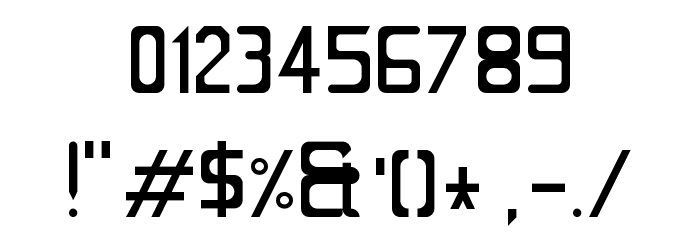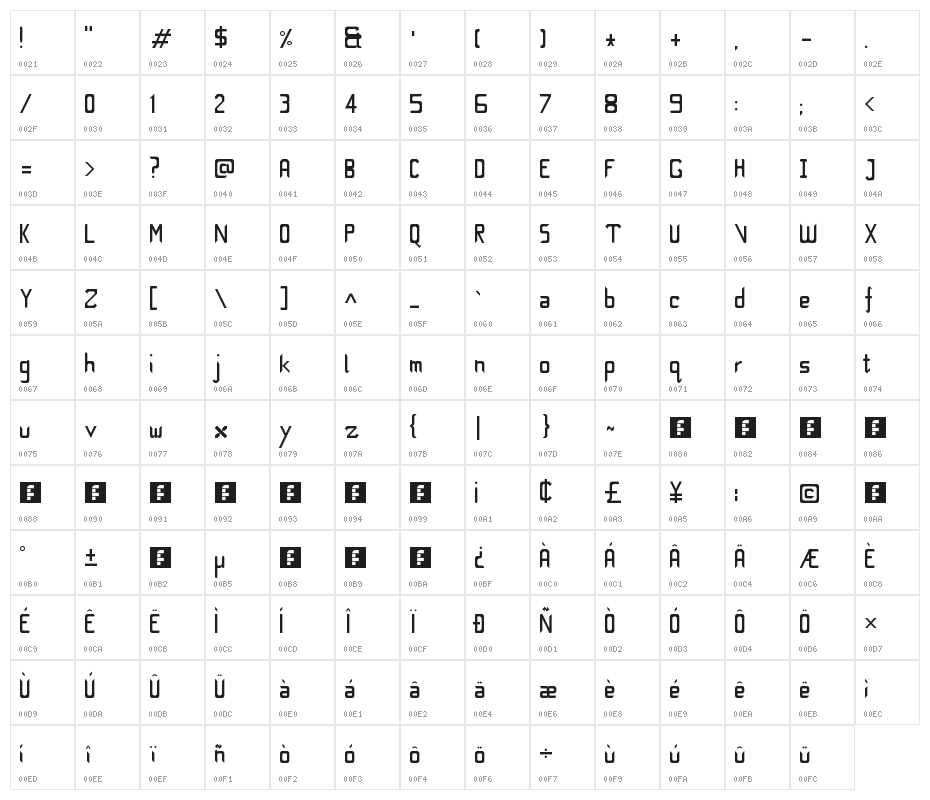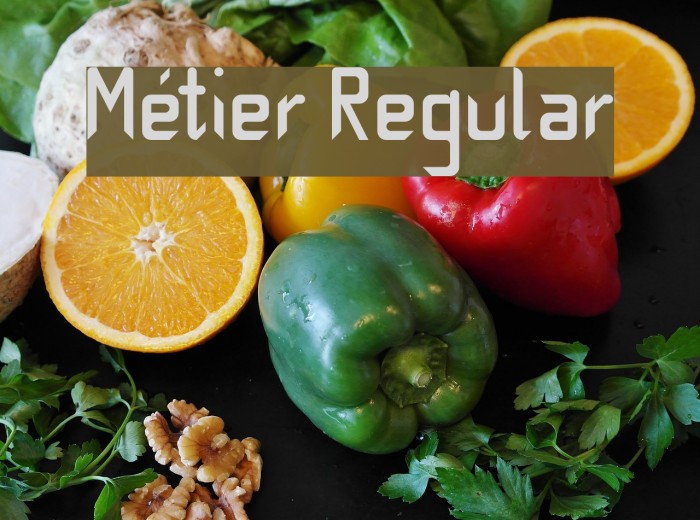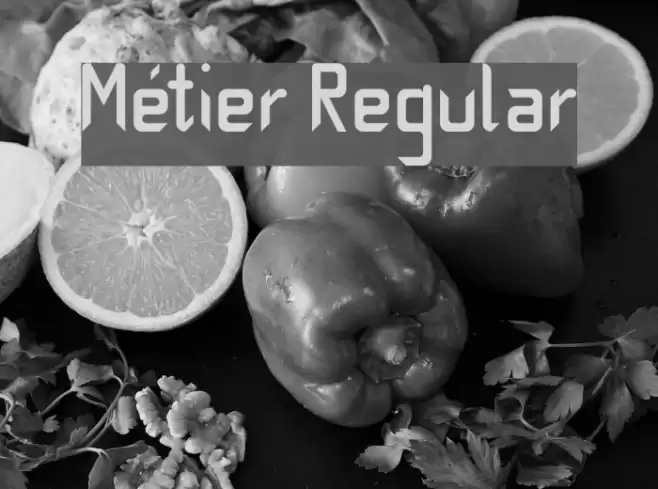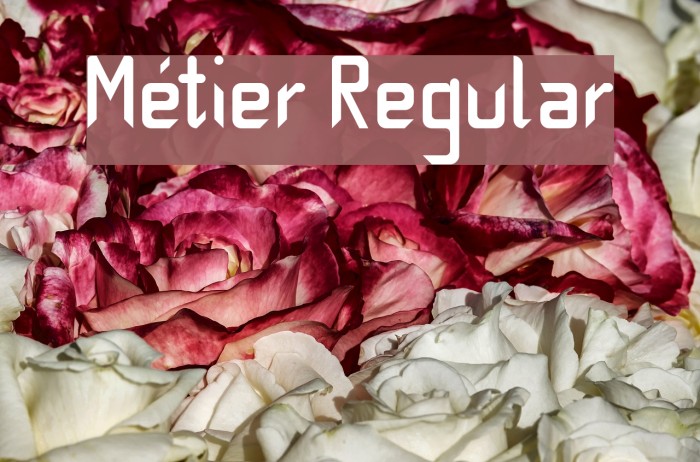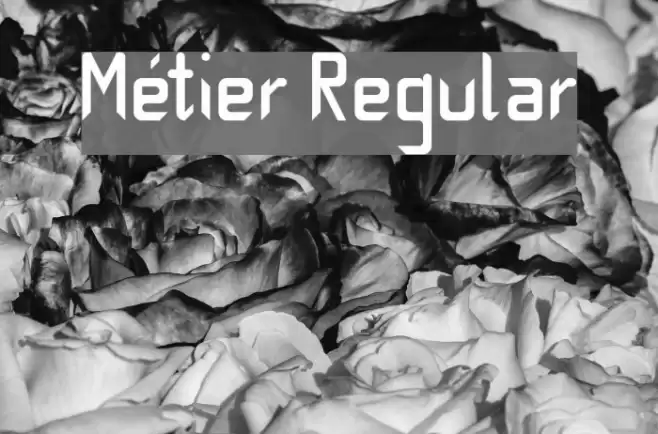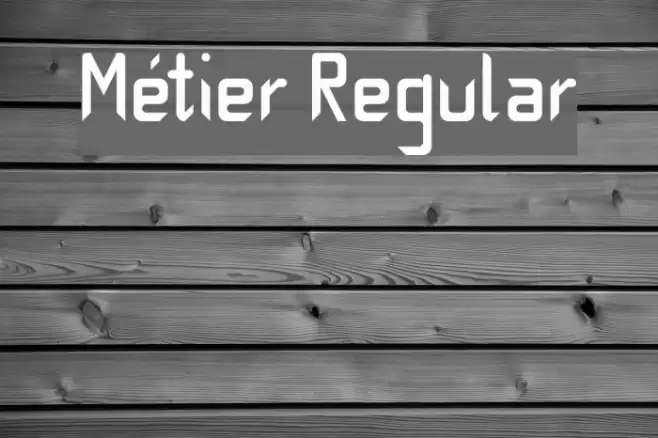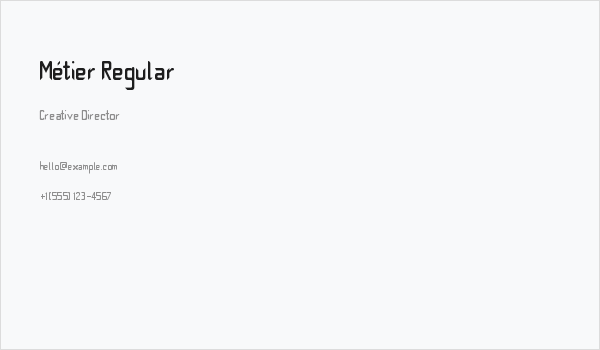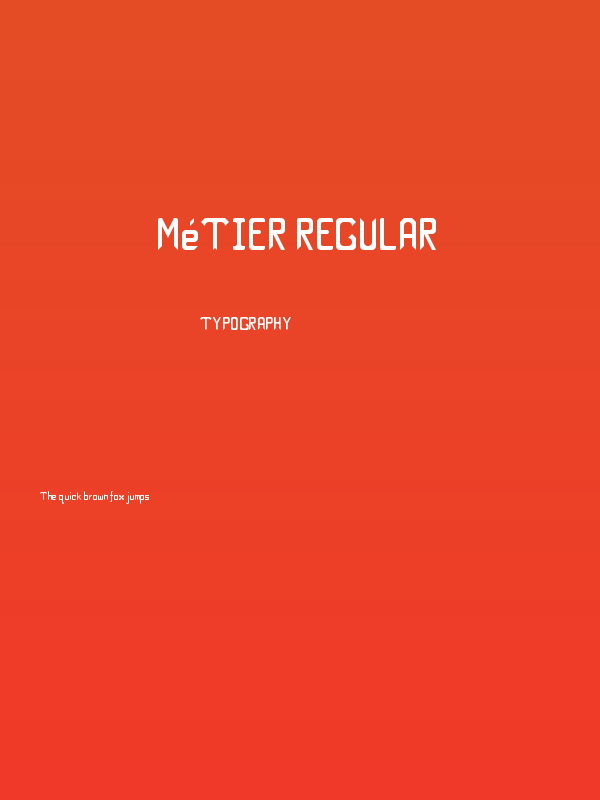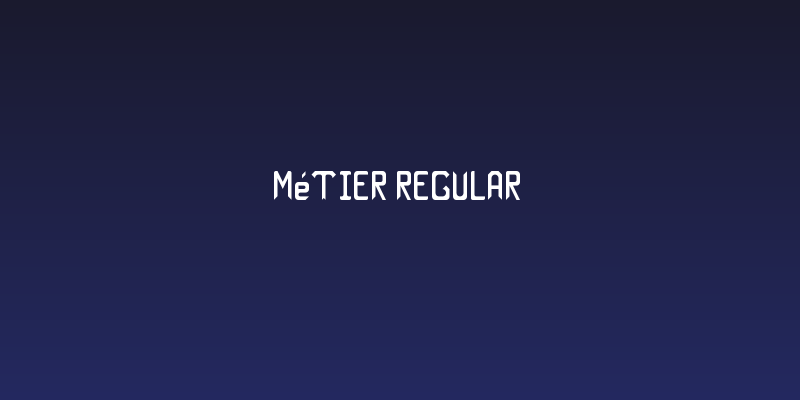
Métier Regular Font
Métier Regular Description
This font features a unique and modern design, characterized by its angular and geometric shapes. The uppercase letters are bold and striking, with sharp edges and a futuristic feel. The lowercase letters maintain the angular style, offering a cohesive look across the typeface. Numbers and special characters are designed with the same geometric precision, making them stand out. The overall appearance is clean and structured, suitable for projects that require a contemporary and edgy aesthetic.
| Proposed Projects | Ideal for branding, technology-related designs, posters, and modern advertising campaigns. |